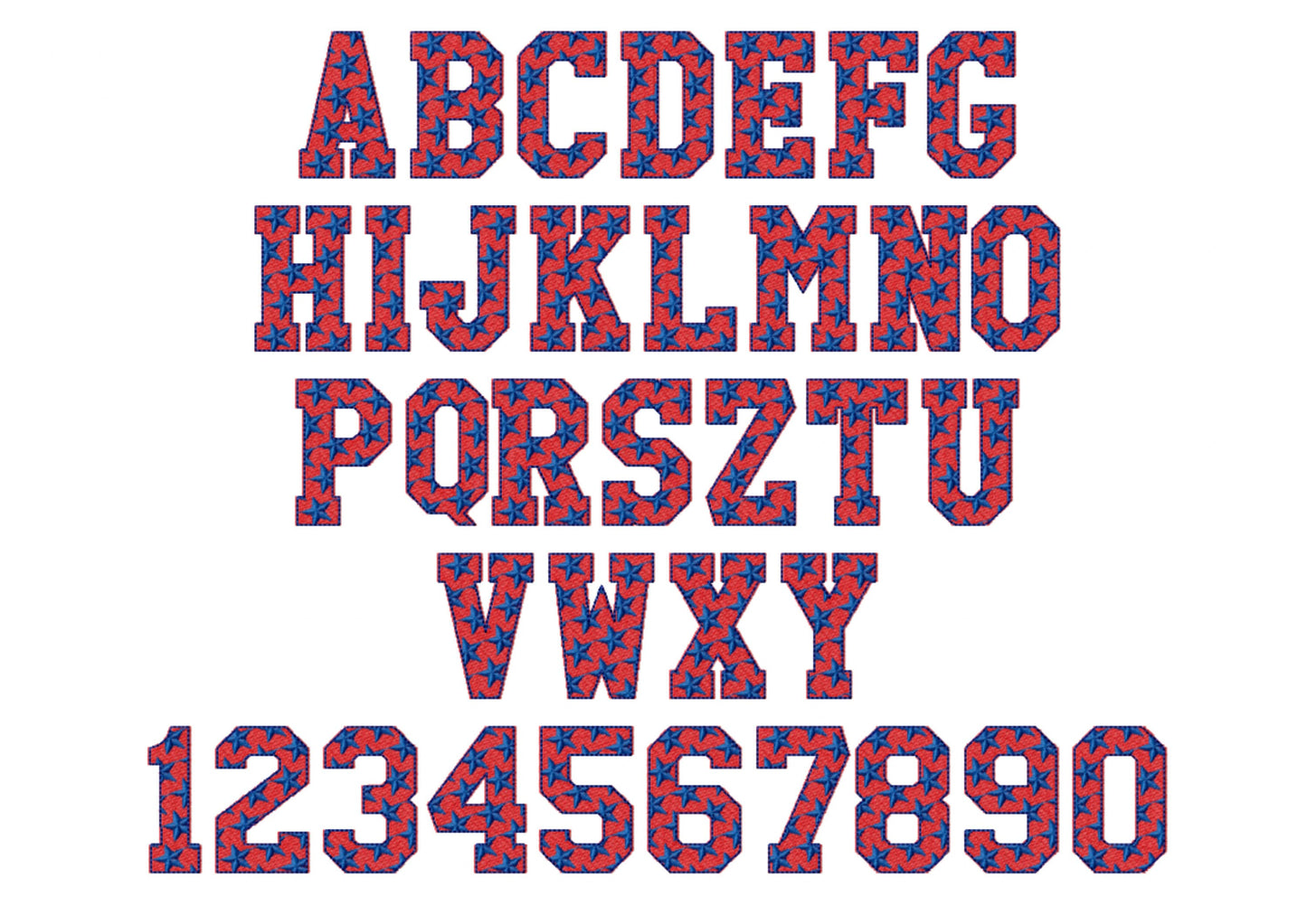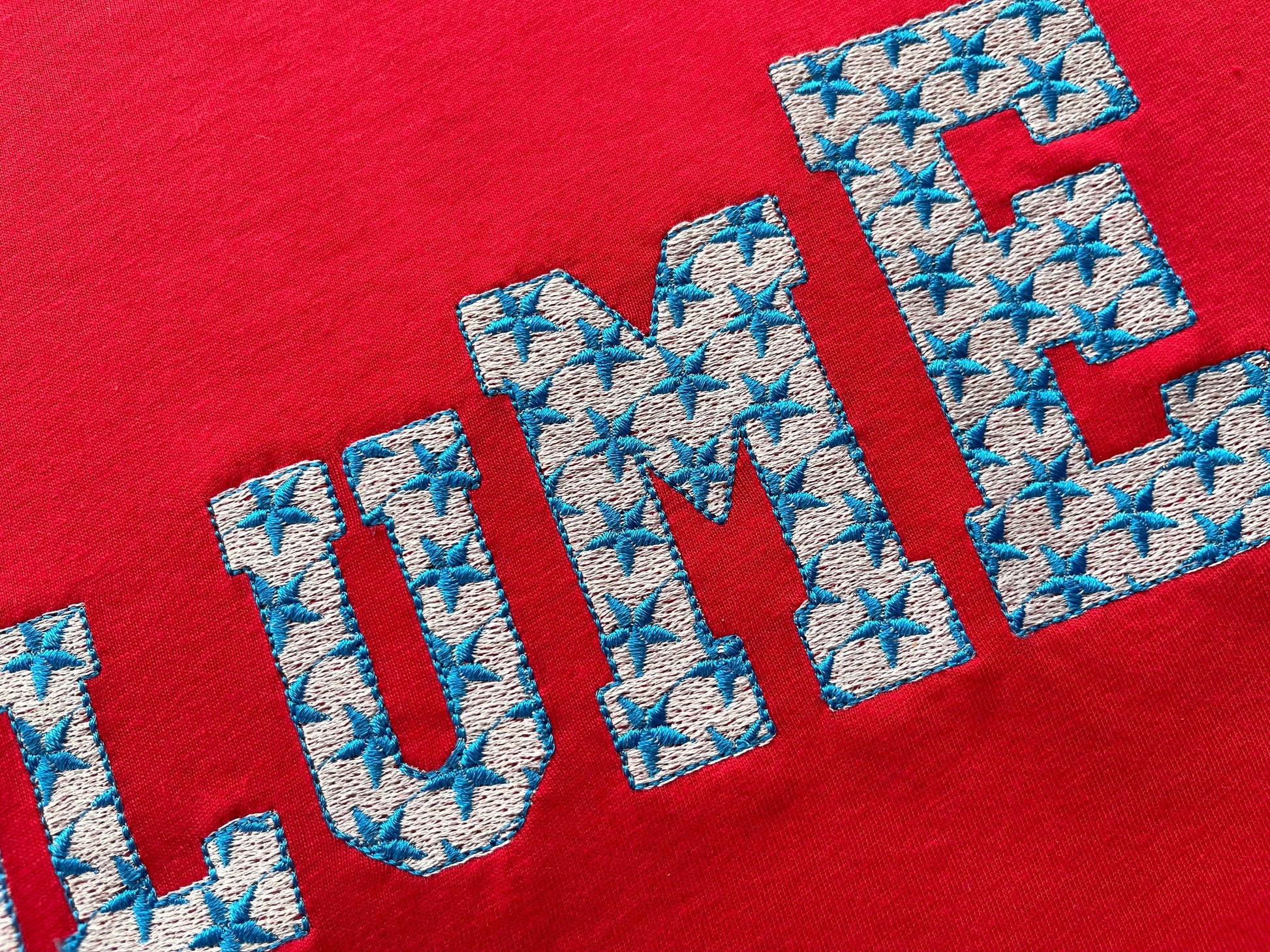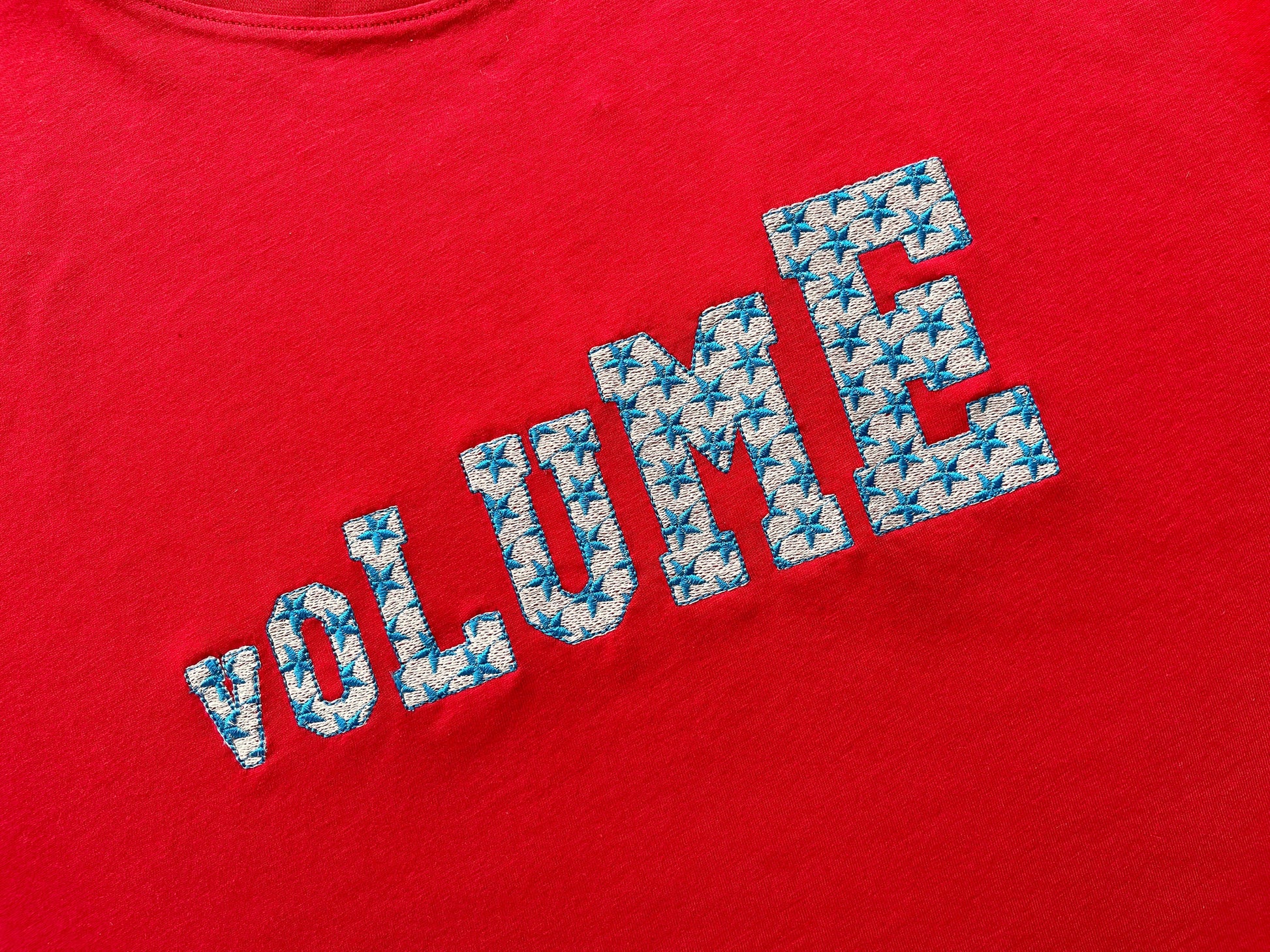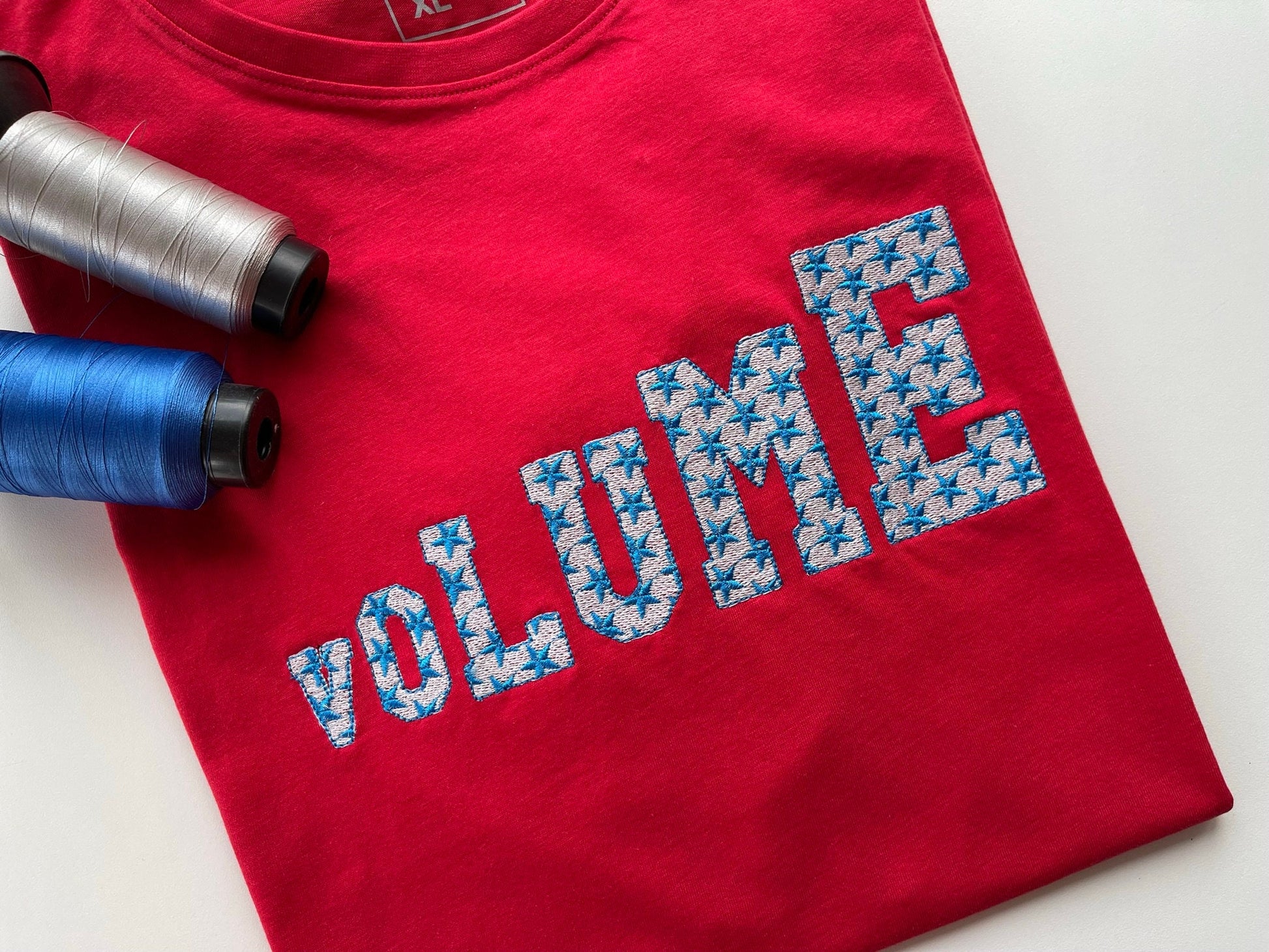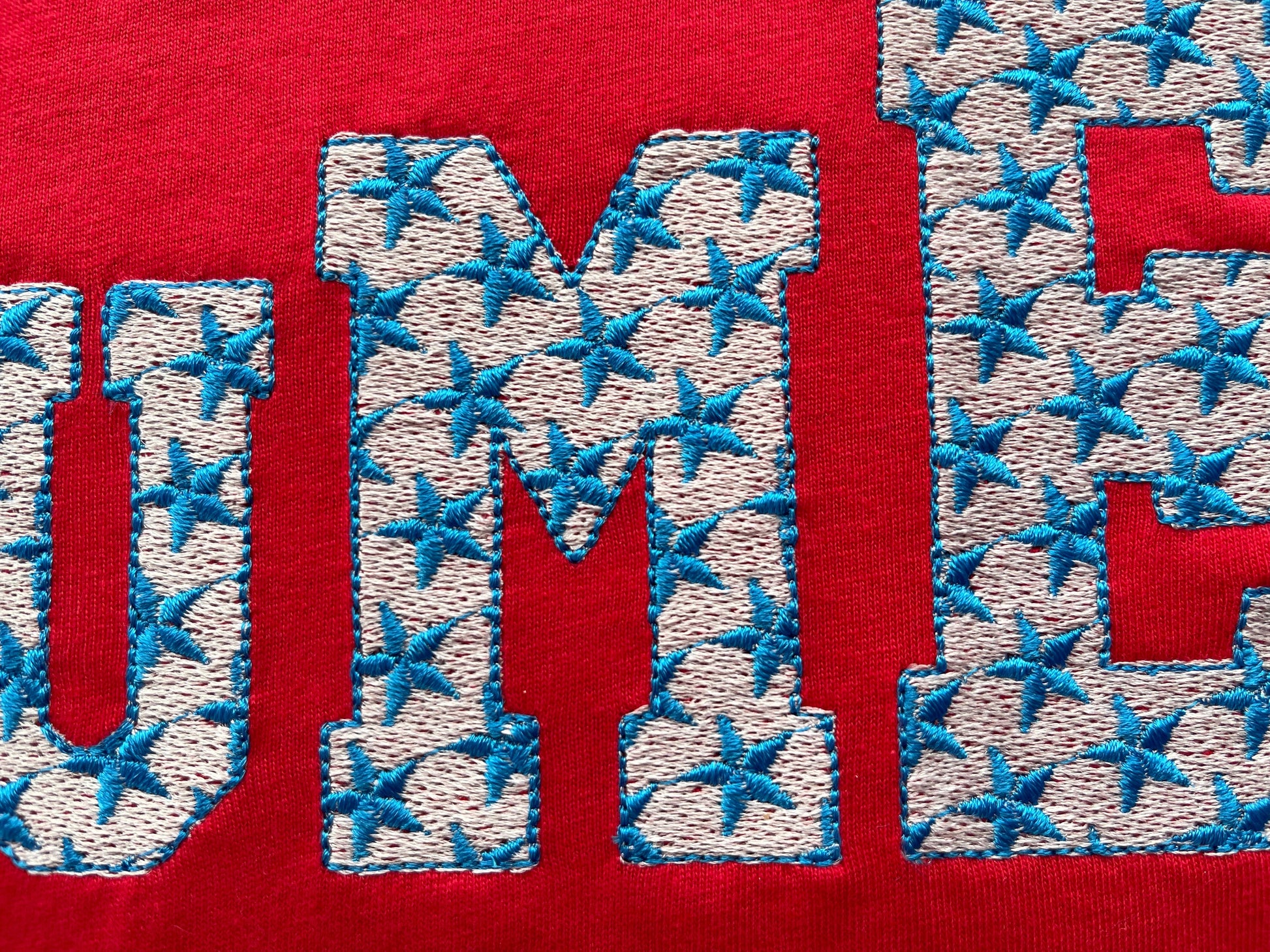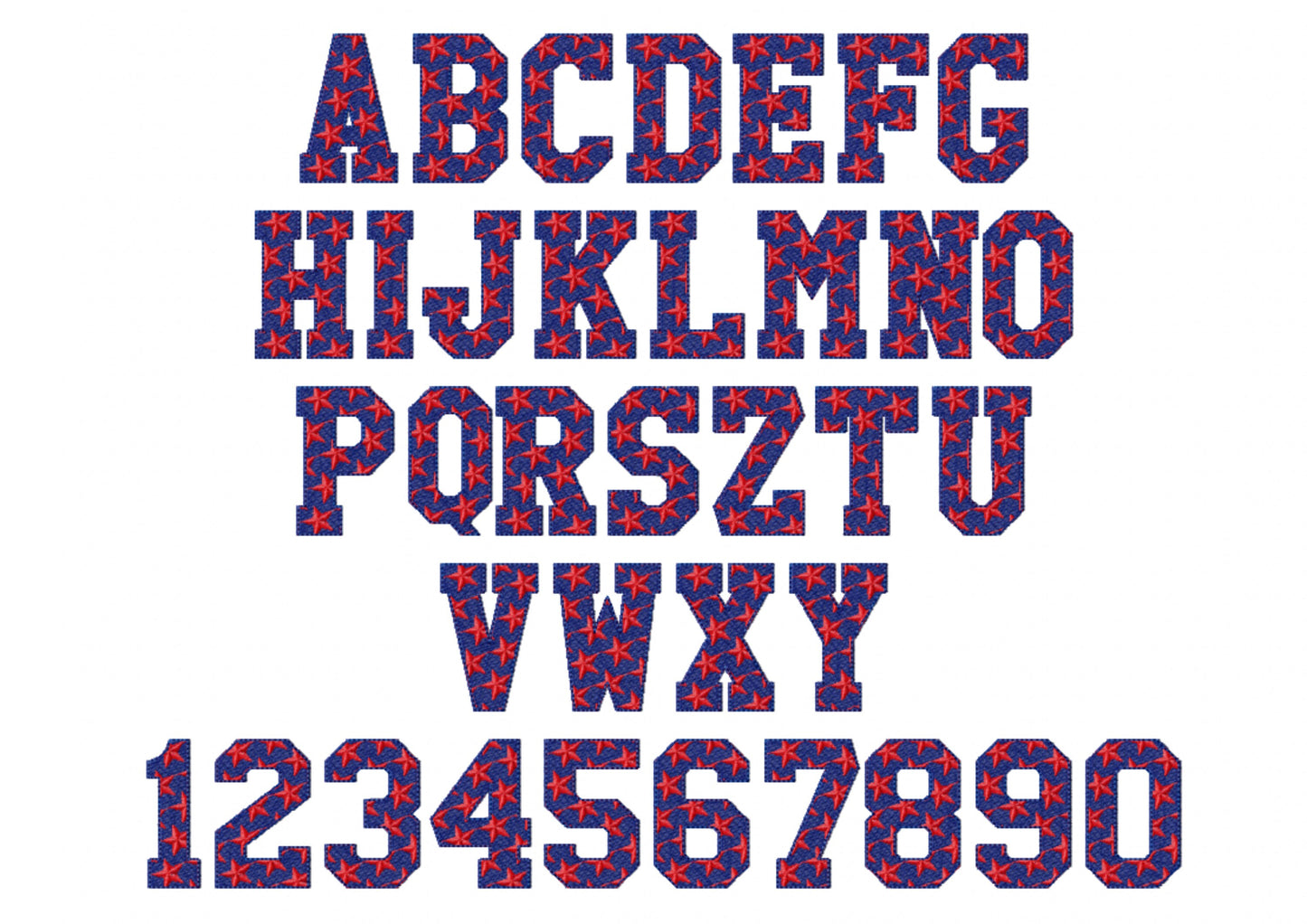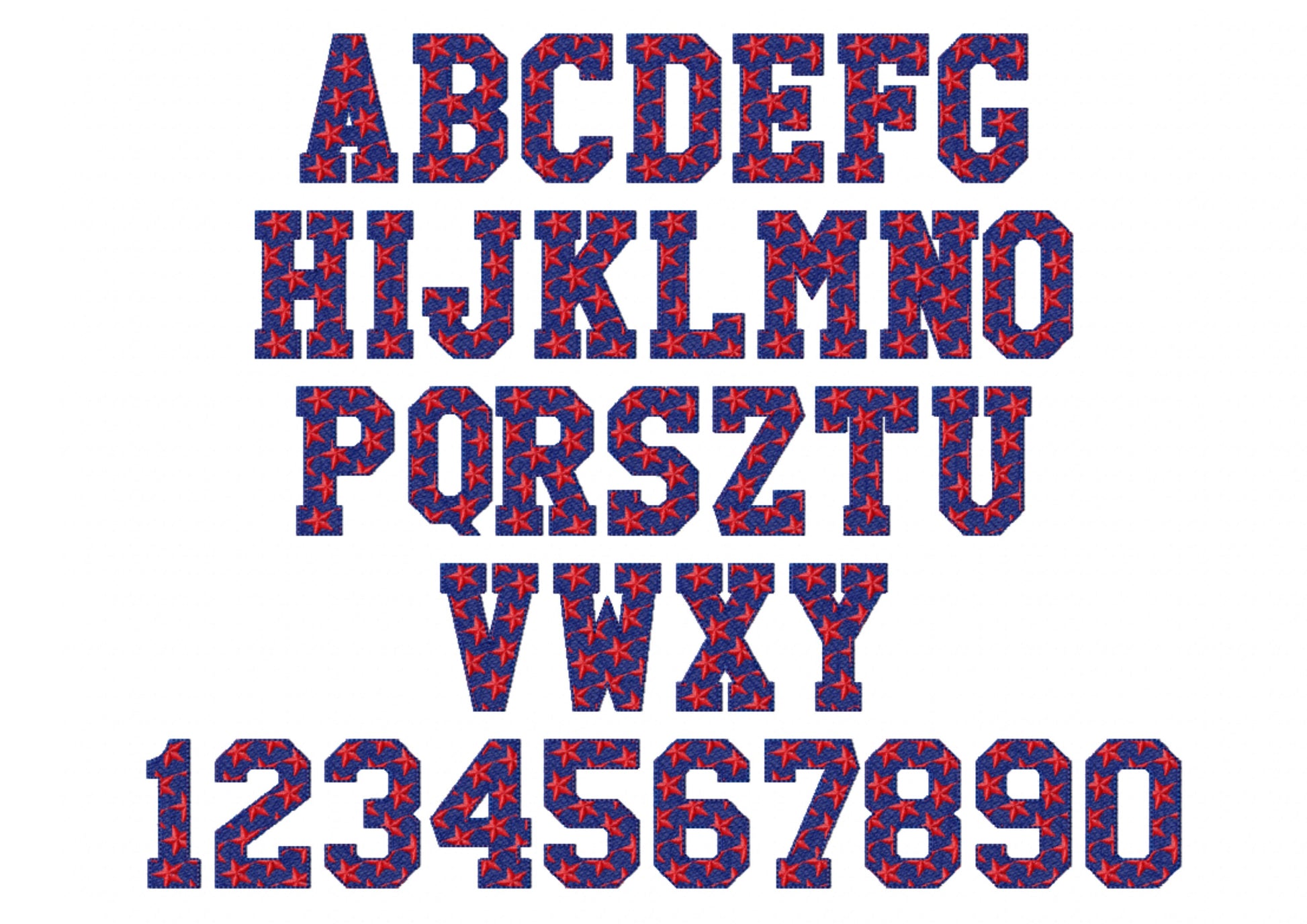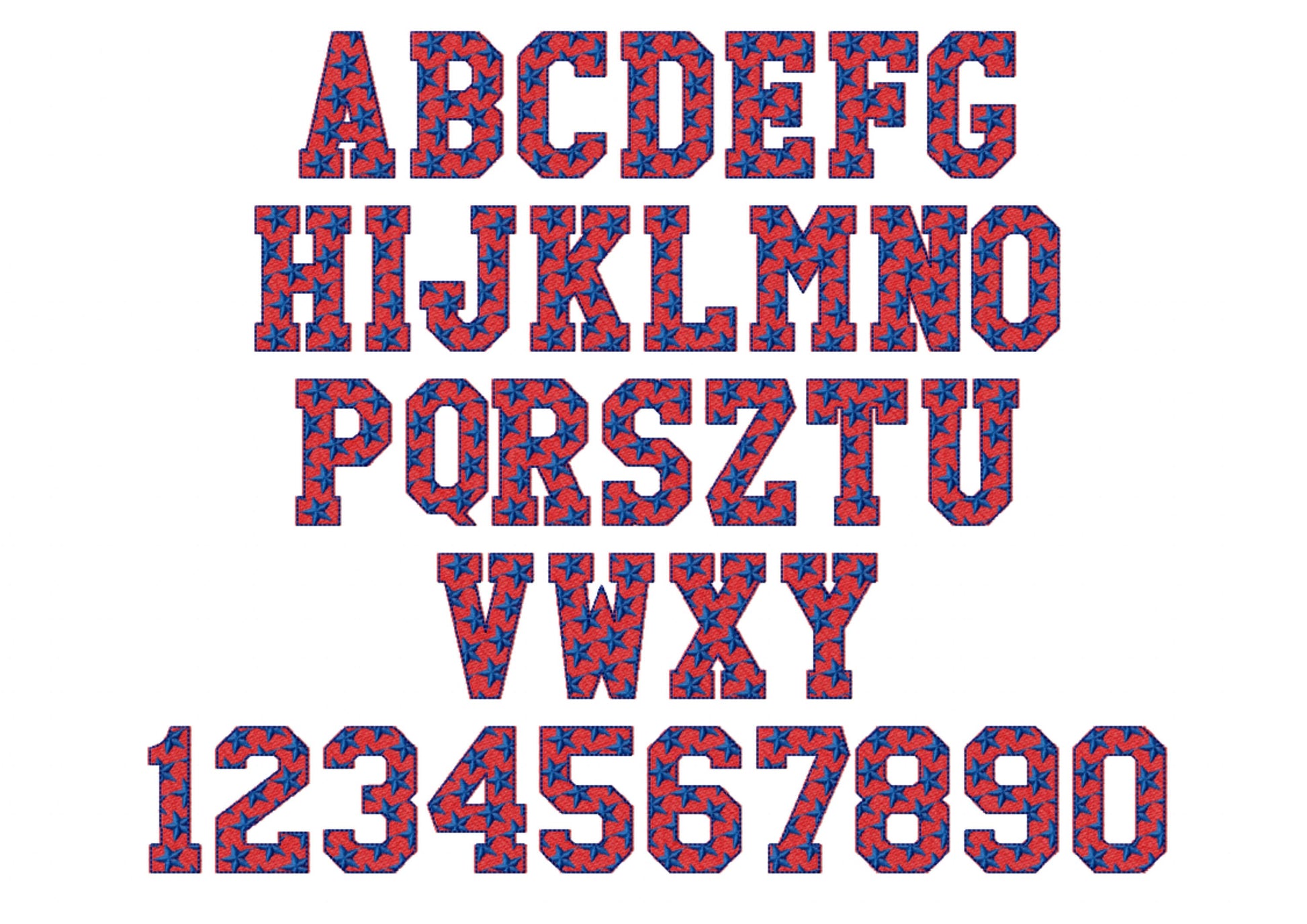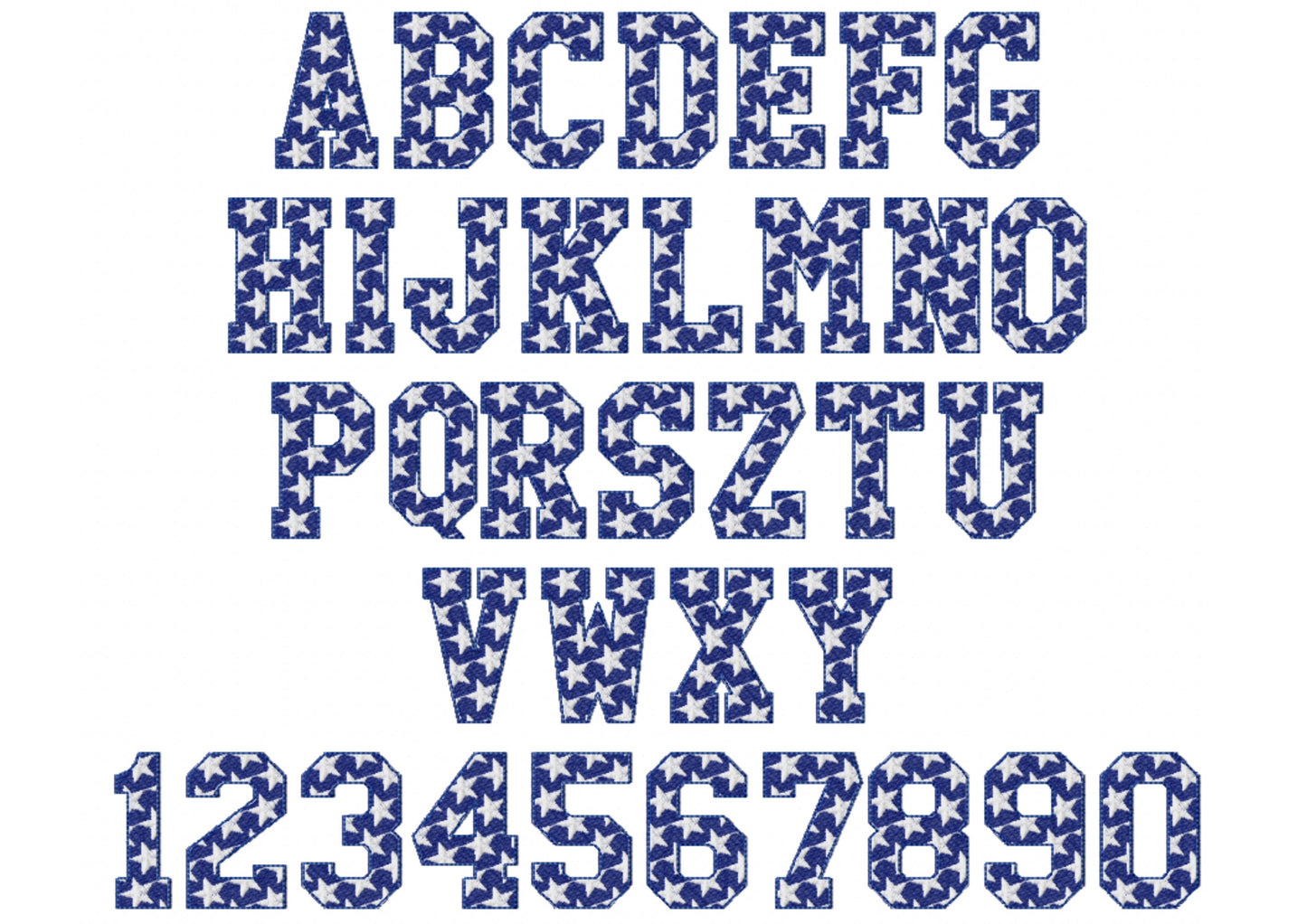
Or click to open the linkA starry varsity font in fill stitch. Fun for Fourth of July shirts, kids' names, team wear and monograms.
Uppercase letters A to Z, numbers 0 to 9, an ampersand, comma, dash and period. Six sizes: 1, 1.5, 2, 2.5, 3 and 4 inches.